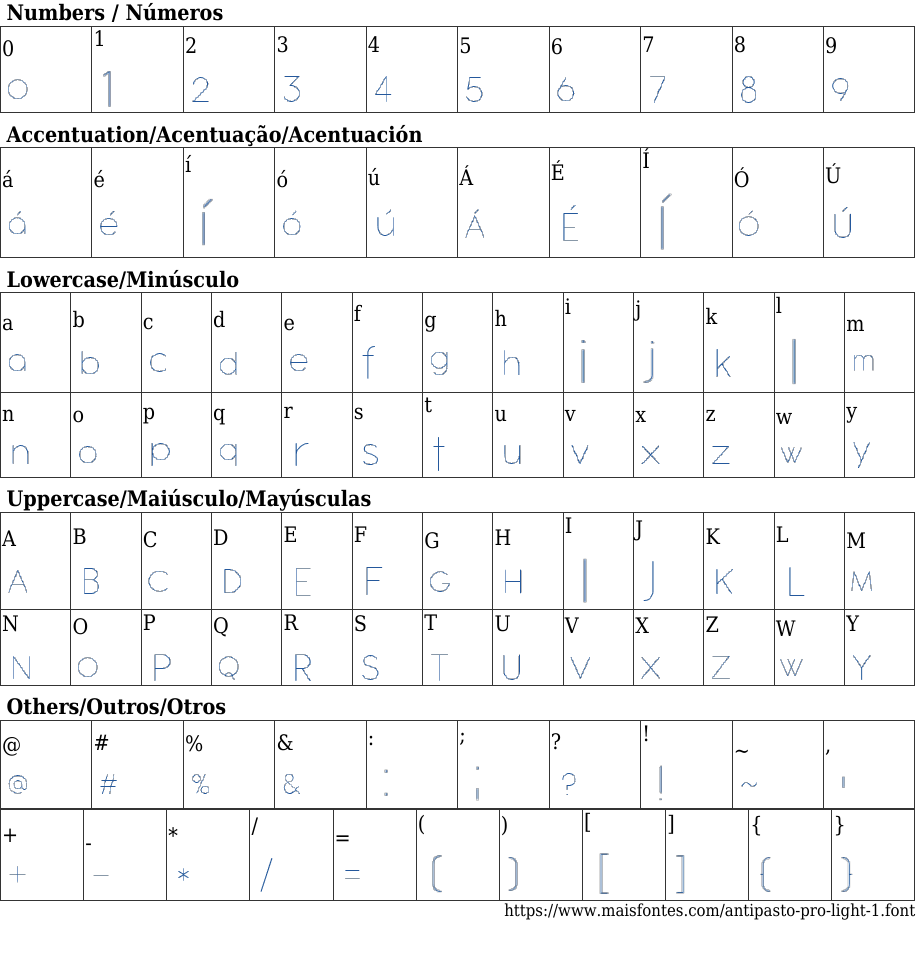
Antipasto Light Font . ️ customize your own preview on ffonts.net to make sure it`s the right one for your designs. The original family of three weights has been revised and expanded. Download antipasto pro font family · free for personal use · this trial font is totally free for noncommercial uses. Antipasto is a geometric sans serif font designed by cosimo lorenzo pancini. The original family of three weights has been. Antipasto is a geometric sans serif font designed by cosimo lorenzo pancini. Download and install the antipasto font by zetafonts. The original family of three weights has been revised and expanded in 2017 with antipasto pro that now. Antipasto is a geometric sans serif font designed by cosimo lorenzo pancini. The antipasto pro light font contains 727 beautifully designed characters. The original family of three weights has been revised and expanded in 2017 with. The antipasto font has been downloaded 33,882 times. Antipasto is a geometric sans serif font designed by cosimo lorenzo pancini. Antipasto is a geometric sans serif font designed by cosimo lorenzo pancini. The original family of three weights has been.
Download antipasto pro font family · free for personal use · this trial font is totally free for noncommercial uses. The antipasto font has been downloaded 33,882 times. The original family of three weights has been revised and expanded. Download and install the antipasto font by zetafonts. The original family of three weights has been revised and expanded in 2017 with. Antipasto is a geometric sans serif font designed by cosimo lorenzo pancini. Antipasto is a geometric sans serif font designed by cosimo lorenzo pancini. Antipasto is a geometric sans serif font designed by cosimo lorenzo pancini. The original family of three weights has been revised and expanded in 2017 with antipasto pro that now. The antipasto pro light font contains 727 beautifully designed characters.
Antipasto Light Font The antipasto font has been downloaded 33,882 times. Antipasto is a geometric sans serif font designed by cosimo lorenzo pancini. The original family of three weights has been. Download and install the antipasto font by zetafonts. The original family of three weights has been revised and expanded in 2017 with antipasto pro that now. The antipasto font has been downloaded 33,882 times. The original family of three weights has been revised and expanded. Download antipasto pro font family · free for personal use · this trial font is totally free for noncommercial uses. Antipasto is a geometric sans serif font designed by cosimo lorenzo pancini. The original family of three weights has been revised and expanded in 2017 with. Antipasto is a geometric sans serif font designed by cosimo lorenzo pancini. The original family of three weights has been. Antipasto is a geometric sans serif font designed by cosimo lorenzo pancini. ️ customize your own preview on ffonts.net to make sure it`s the right one for your designs. Antipasto is a geometric sans serif font designed by cosimo lorenzo pancini. The antipasto pro light font contains 727 beautifully designed characters.
Antipasto font Font Tr Antipasto Light Font Antipasto is a geometric sans serif font designed by cosimo lorenzo pancini. The original family of three weights has been revised and expanded in 2017 with. The original family of three weights has been revised and expanded. Download antipasto pro font family · free for personal use · this trial font is totally free for noncommercial uses. Antipasto is a. Antipasto Light Font.
Antipasto Font Free Download Antipasto Light Font The original family of three weights has been. The original family of three weights has been revised and expanded in 2017 with. Antipasto is a geometric sans serif font designed by cosimo lorenzo pancini. Download antipasto pro font family · free for personal use · this trial font is totally free for noncommercial uses. Antipasto is a geometric sans serif. Antipasto Light Font.
Antipasto Font Free Download Antipasto Light Font The original family of three weights has been. Antipasto is a geometric sans serif font designed by cosimo lorenzo pancini. The original family of three weights has been revised and expanded. The antipasto pro light font contains 727 beautifully designed characters. The original family of three weights has been revised and expanded in 2017 with antipasto pro that now. The. Antipasto Light Font.
Antipasto Font Free Download Antipasto Light Font Antipasto is a geometric sans serif font designed by cosimo lorenzo pancini. The original family of three weights has been revised and expanded. Antipasto is a geometric sans serif font designed by cosimo lorenzo pancini. Antipasto is a geometric sans serif font designed by cosimo lorenzo pancini. The original family of three weights has been. The original family of three. Antipasto Light Font.
Antipasto Pro Light Font Antipasto is a geometric sans serif font designed by cosimo lorenzo pancini. The antipasto pro light font contains 727 beautifully designed characters. Antipasto is a geometric sans serif font designed by cosimo lorenzo pancini. The original family of three weights has been revised and expanded. Antipasto is a geometric sans serif font designed by cosimo lorenzo pancini. The original family. Antipasto Light Font.
Antipasto Font Free Download Antipasto Light Font The antipasto font has been downloaded 33,882 times. Download antipasto pro font family · free for personal use · this trial font is totally free for noncommercial uses. Antipasto is a geometric sans serif font designed by cosimo lorenzo pancini. Antipasto is a geometric sans serif font designed by cosimo lorenzo pancini. The original family of three weights has been.. Antipasto Light Font.
Antipasto Icons Light Font OpenType YouWorkForThem Antipasto Light Font Download and install the antipasto font by zetafonts. The antipasto font has been downloaded 33,882 times. Antipasto is a geometric sans serif font designed by cosimo lorenzo pancini. ️ customize your own preview on ffonts.net to make sure it`s the right one for your designs. Antipasto is a geometric sans serif font designed by cosimo lorenzo pancini. The original family. Antipasto Light Font.
Antipasto Pro Font Fonts Studio Antipasto Light Font Antipasto is a geometric sans serif font designed by cosimo lorenzo pancini. The original family of three weights has been. Download and install the antipasto font by zetafonts. The original family of three weights has been. Download antipasto pro font family · free for personal use · this trial font is totally free for noncommercial uses. Antipasto is a geometric. Antipasto Light Font.
Antipasto Font Free by Zetafonts » Font Squirrel Antipasto Light Font Antipasto is a geometric sans serif font designed by cosimo lorenzo pancini. The original family of three weights has been. The antipasto pro light font contains 727 beautifully designed characters. The original family of three weights has been revised and expanded. ️ customize your own preview on ffonts.net to make sure it`s the right one for your designs. Download and. Antipasto Light Font.